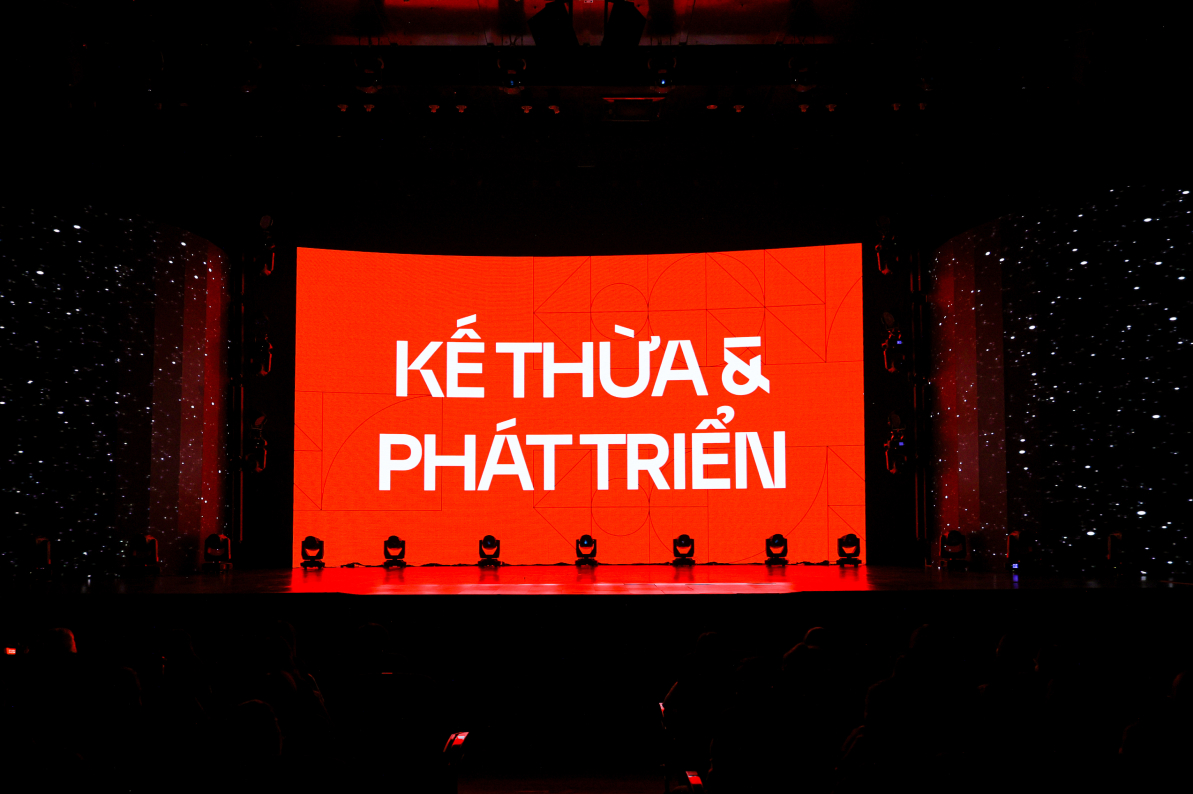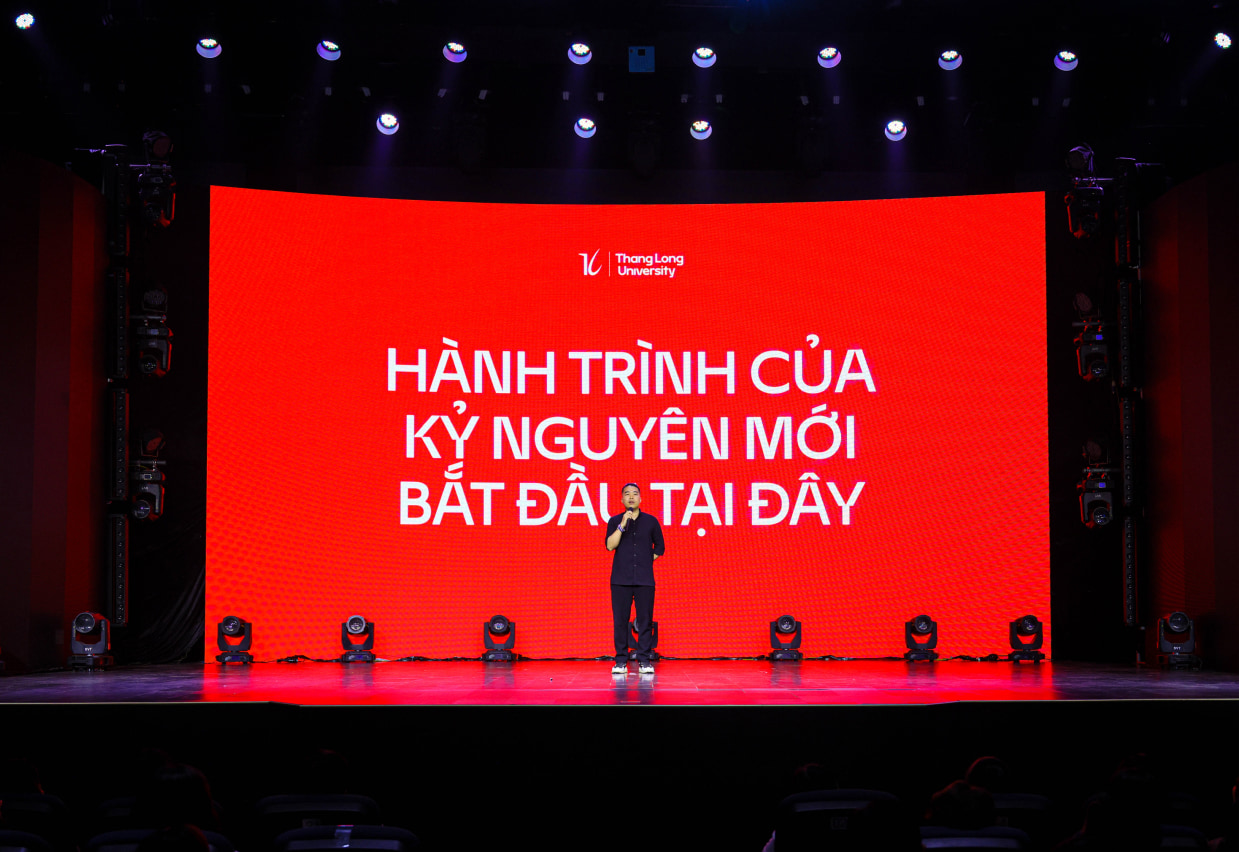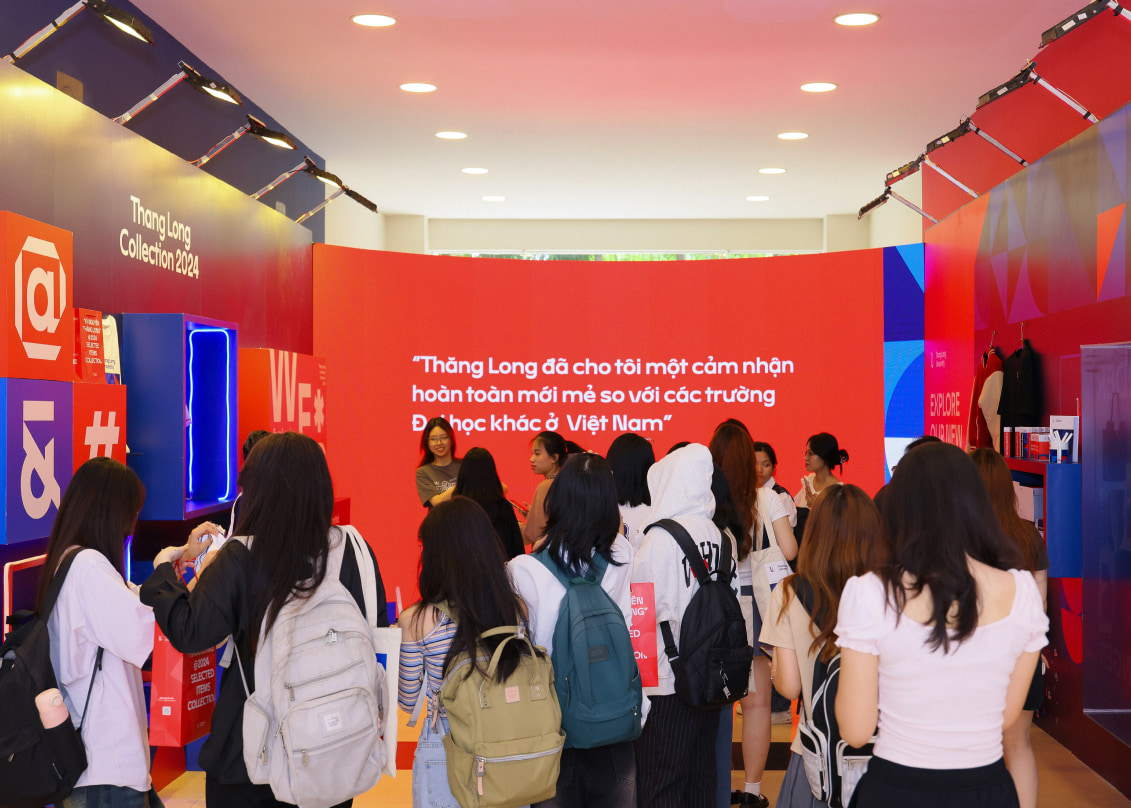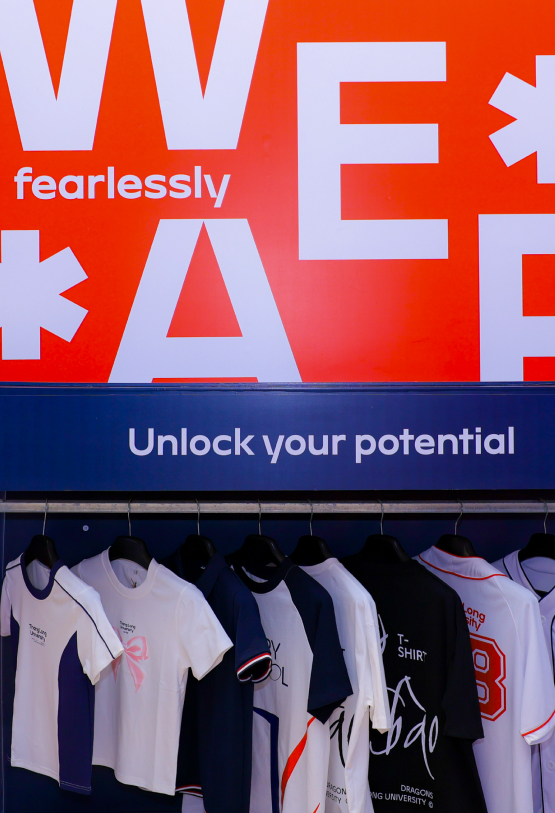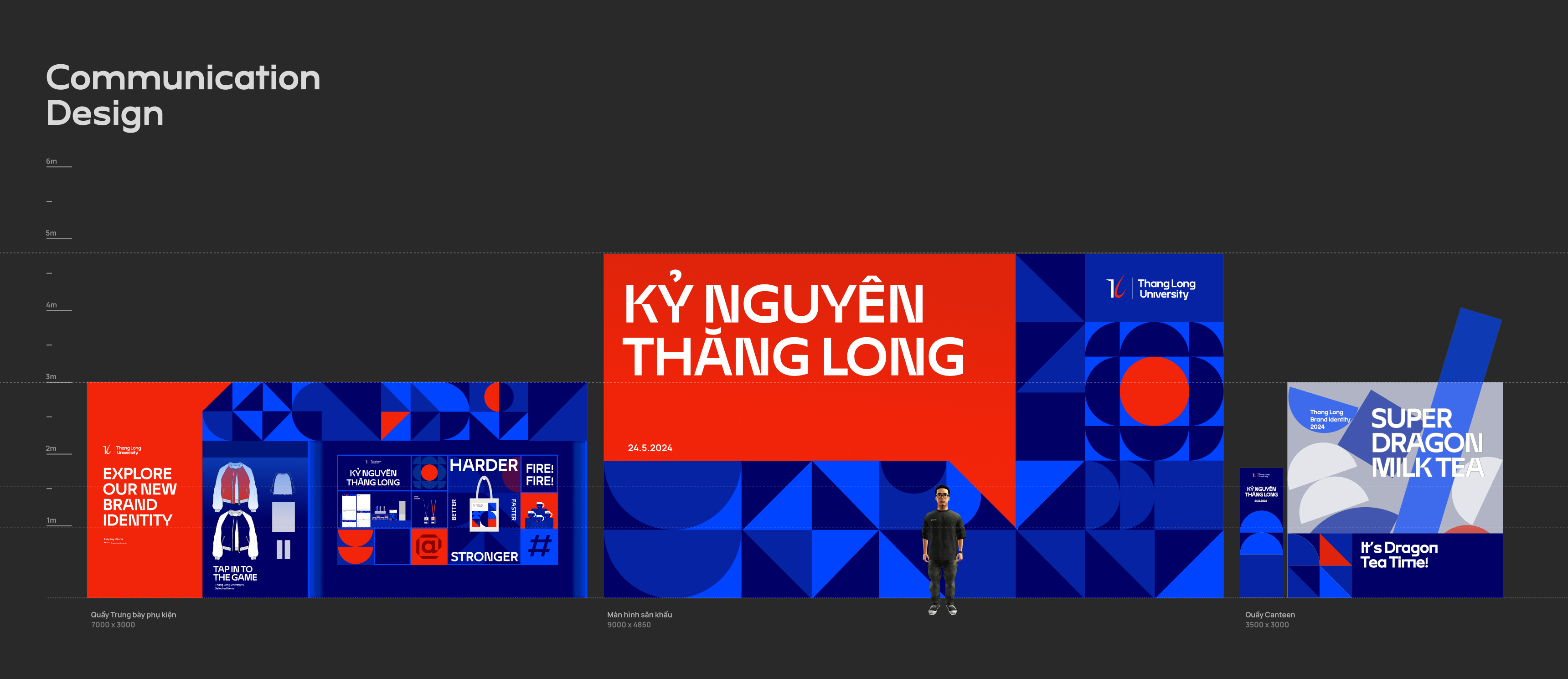
THĂNG LONG SANS
Thăng Long Sans is an exclusive display typeface developed by Thang Long University, in collaboration with Beautique and BeauType Studio
- 01Crafted to complement Thang Long University's new visual identity, this typeface ensures consistency across all communications
- 02Rooted in the brand's geometric concept, every character in this typeface is designed with a strong geometric foundation
- 03The typeface exudes the seriousness and academic tone befitting a university, while also conveying the institution's commitment to practical application, innovation, and progress
Thăng Long Sans
- 03 weights
- 06 styles
Full Vietnamese
Diacritic Set
ALTERNATES